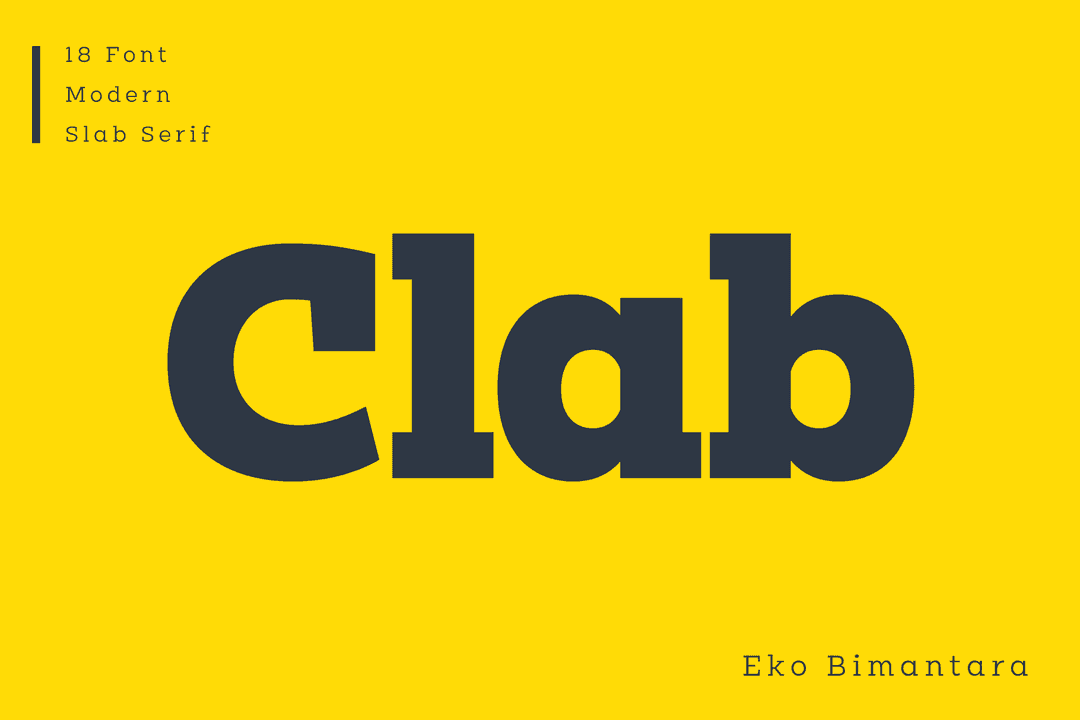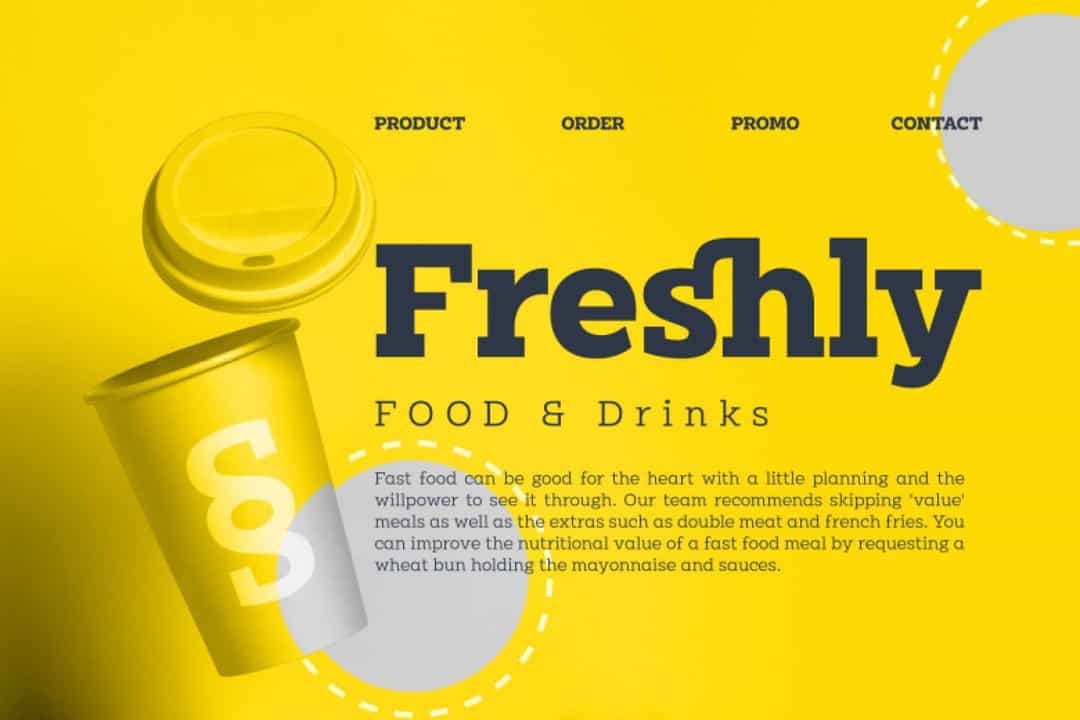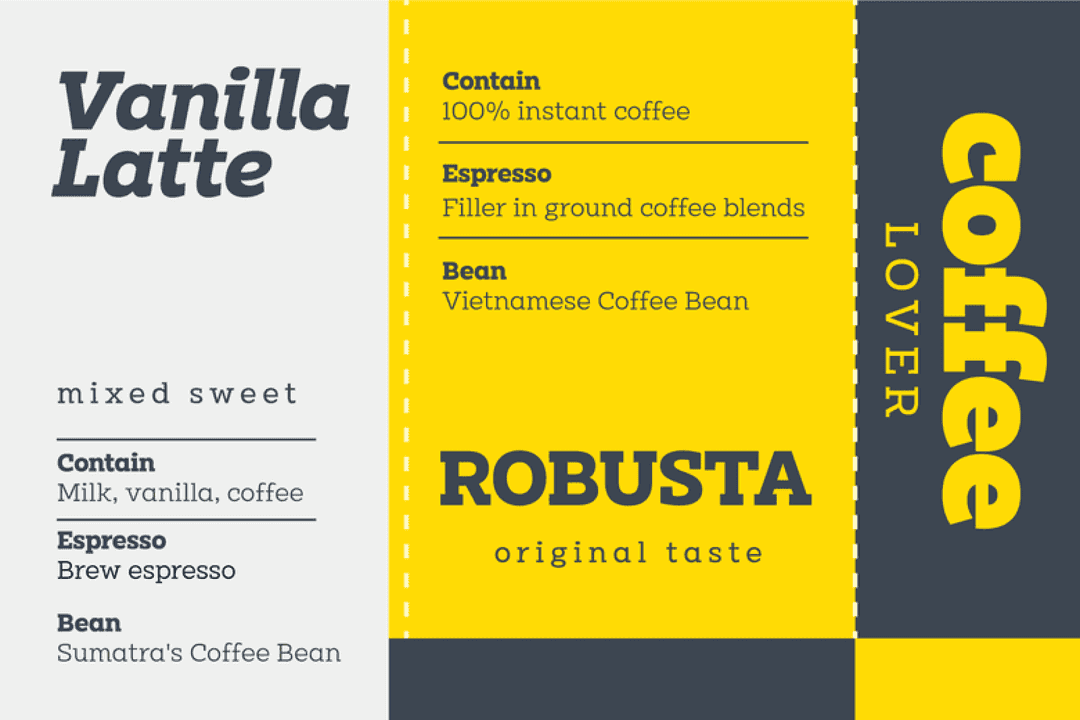
Clab is a Slab Serif font that is modern, unique and elegant genre with reverse contrast ideal for branding, packaging, and editorial usage! Clab an created by Eko Bimantara. Clab is meant to be used for branding. The initial characters of this font were made by the bold and bulky personality, but thin strokes and flowy italics is ideal for a wide range of families.